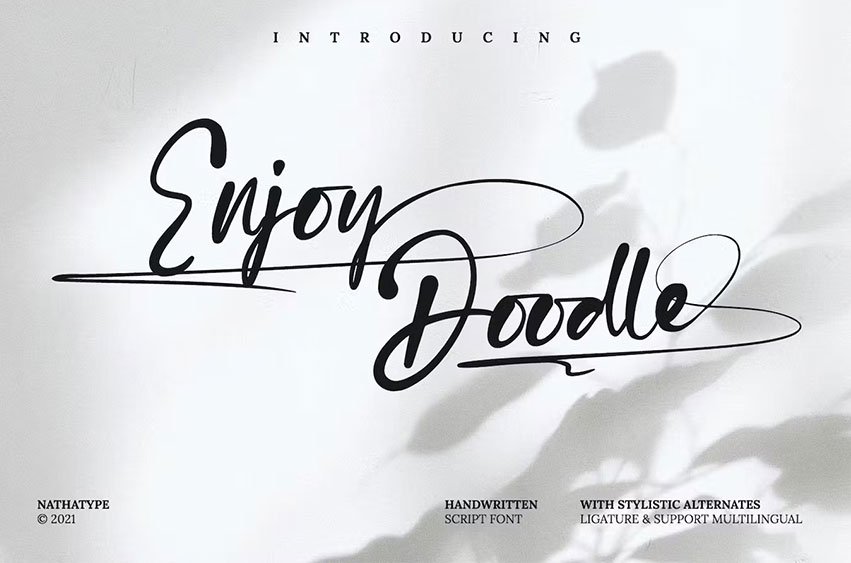
Enjoy Doodle Font is a modern hand-crafted font that’ll make your audience swoon and enhance your branding projects, printed materials, and website design. Every stroke and curve was created to portray the essence of elegance and style. Go ahead and use it on your headings, promote your online sales, Instagram quotes, and even printed materials like business cards, t-shirts, or invitations.
- Stylistic Set
- Swashes
- Numerals and Punctuation